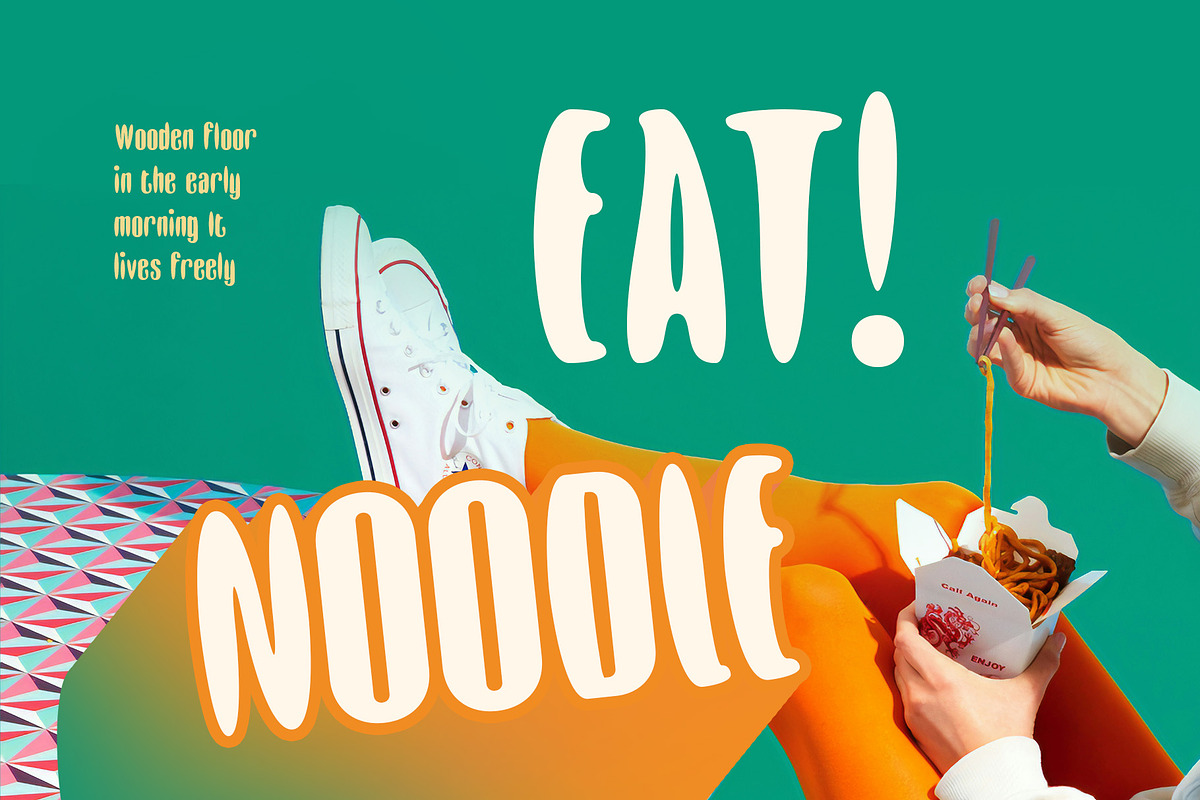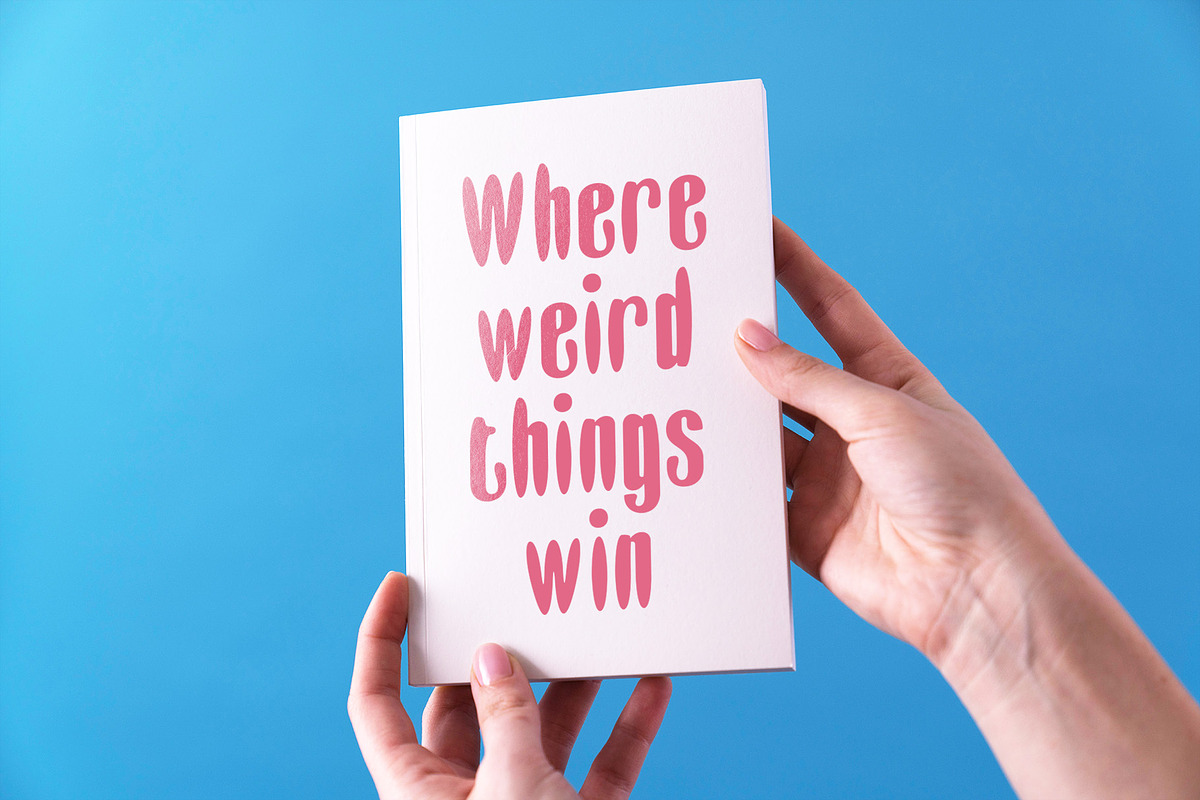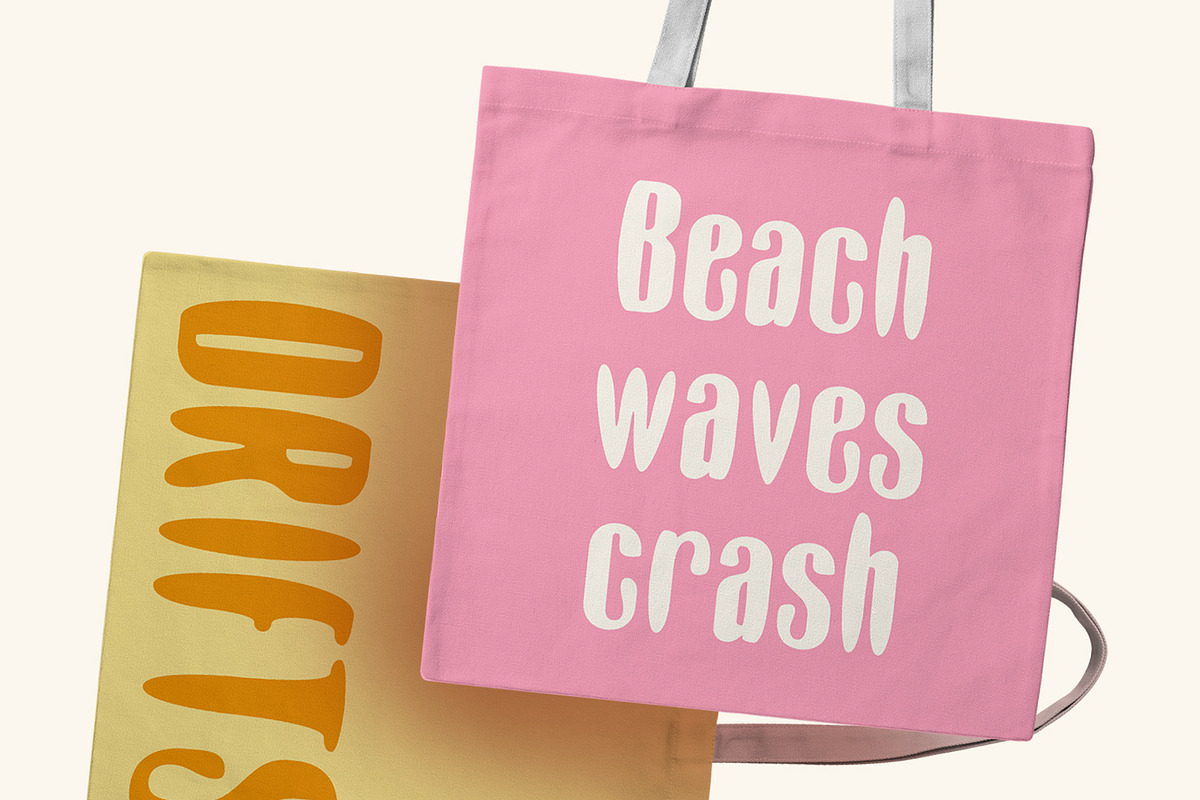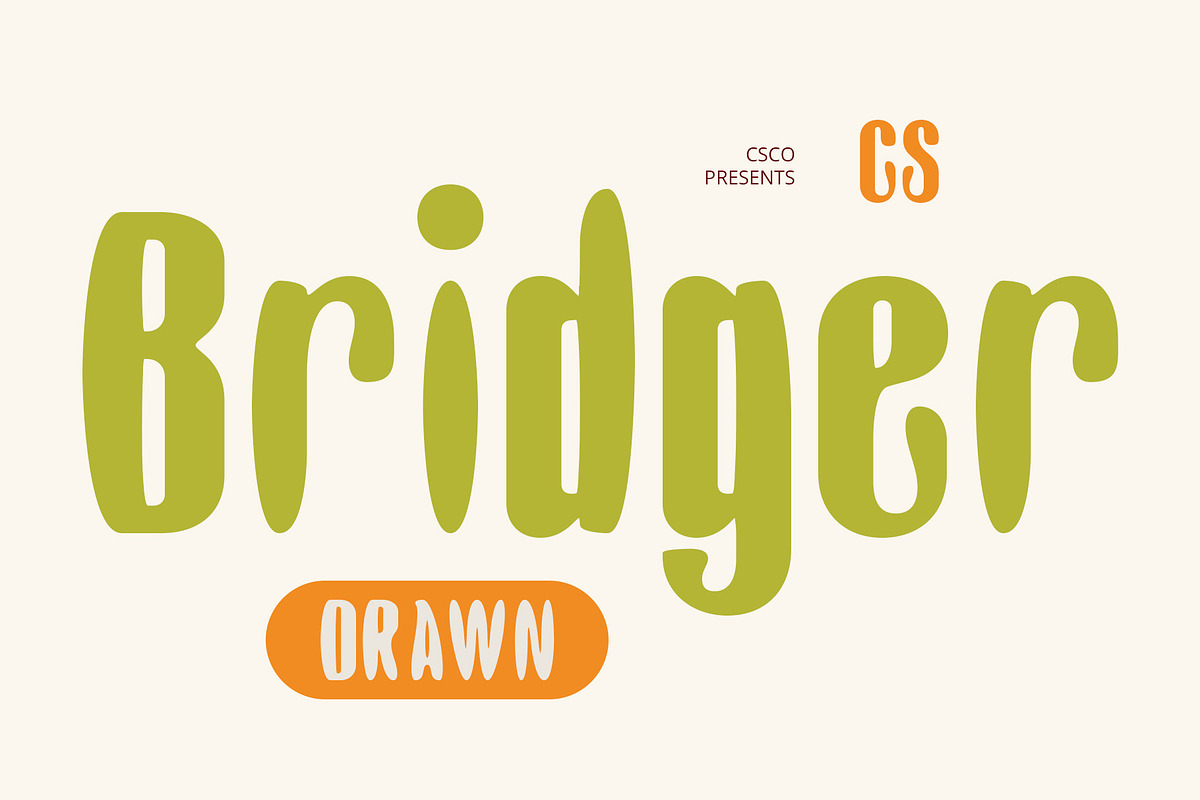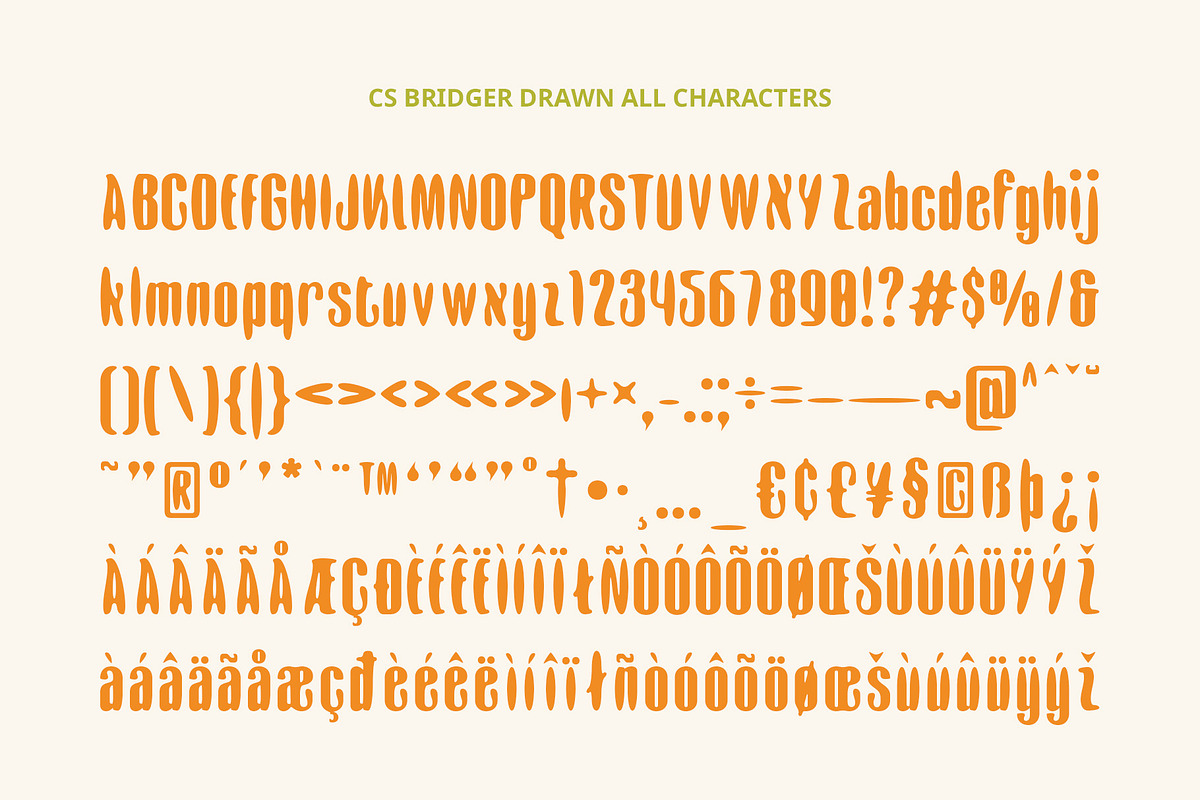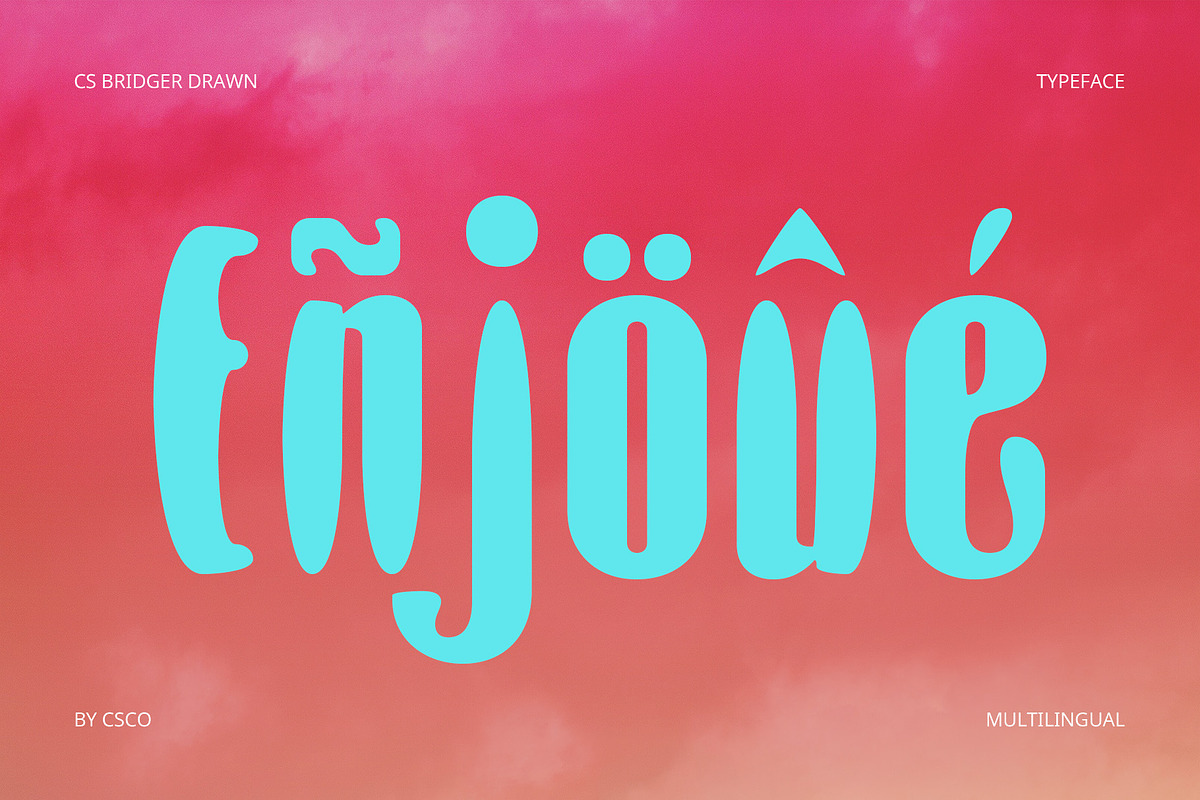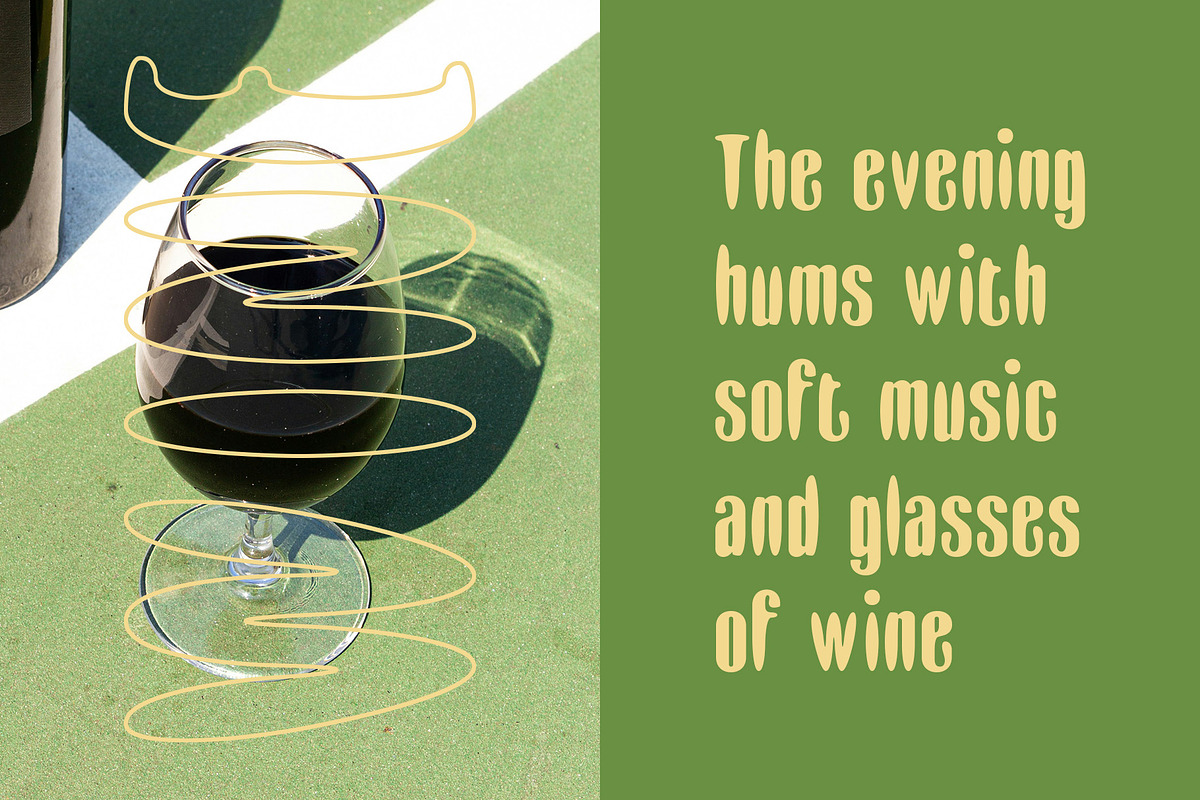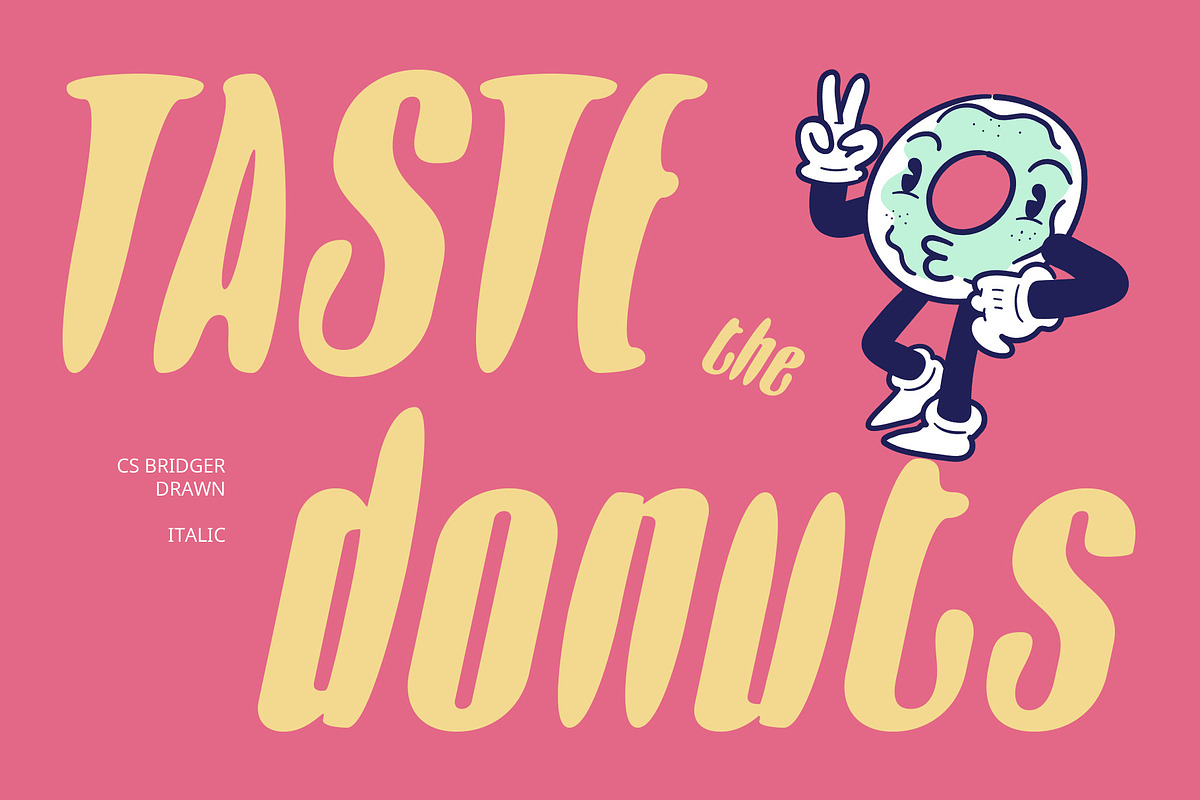
CS Bridger Drawn
CS Bridger Drawn – Bold Compact Energy with an Artistic Edge
Condensed Bold Form for Maximum Impact This is a modern sans-serif font featuring a bold, condensed structure that makes a powerful visual statement. Its narrow letterforms maximize space efficiency while delivering a compact and assertive look, ideal for headlines and layouts where every inch matters.
Urban and Expressive Style Designed with a strong urban character, this font radiates creative energy and confidence. The tight structure and impactful weight give it a dynamic presence, making it a great choice for visual projects that demand attention and convey a sense of strength, attitude, and bold expression.
Handcrafted Drawn Texture for Character The drawn effect adds a raw, artistic layer to its otherwise structured form. This handcrafted touch introduces texture and imperfection, enhancing its visual depth and giving the font a personal, expressive edge—perfect for brands and creatives who seek to blend modernity with individuality.
Perfect for Energetic and Creative Visuals Whether used for posters, alternative branding, edgy packaging, or experimental editorial designs, this energetic font delivers a fresh and impactful aesthetic. It’s the ideal choice for designers who want to communicate power, style, and creativity in a bold yet refined way.